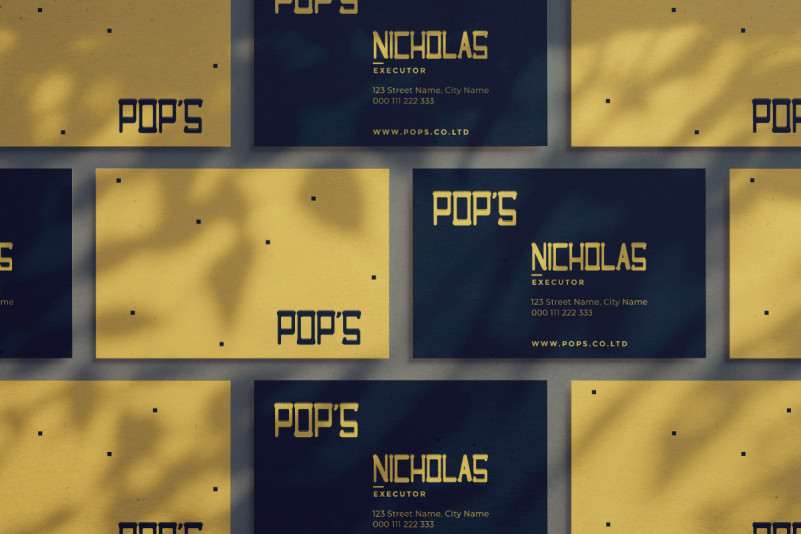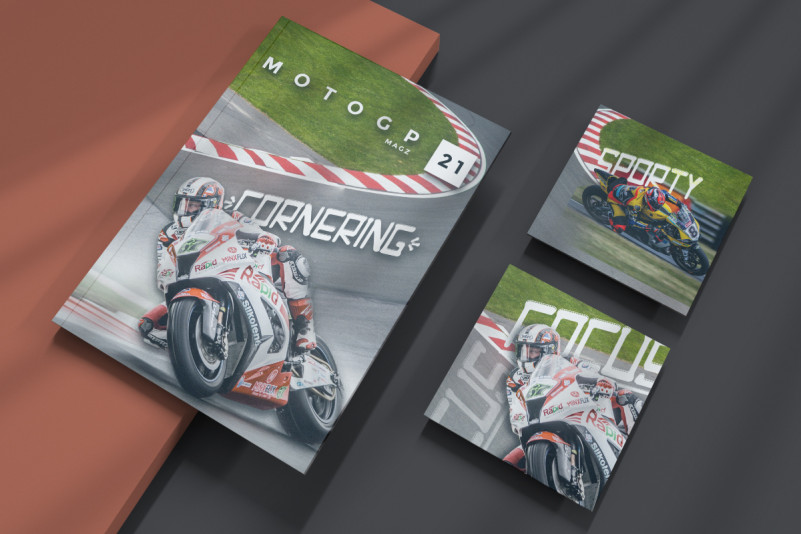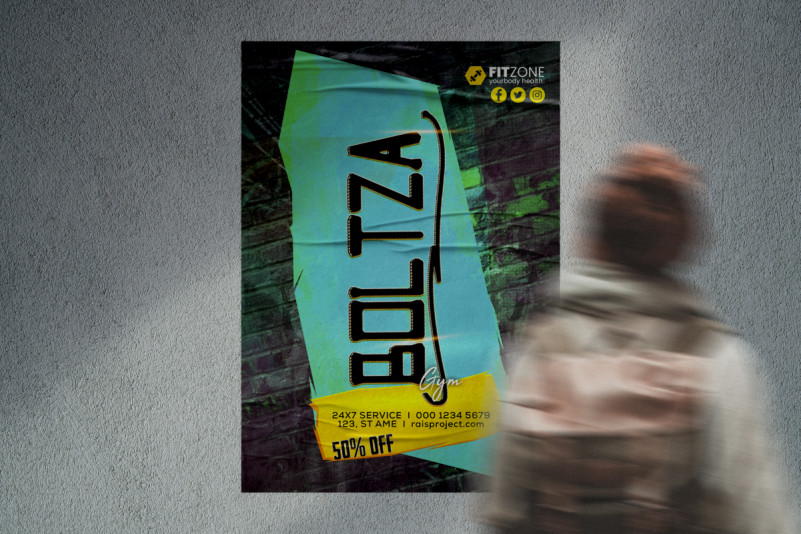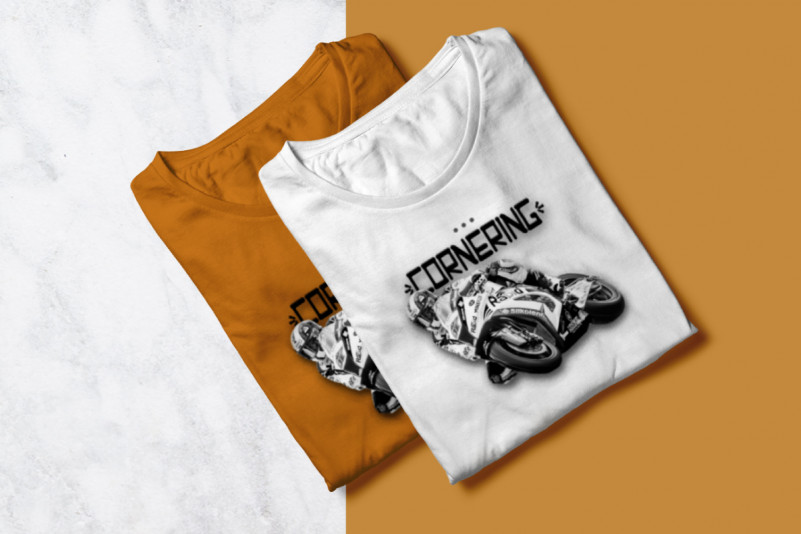
Cornering Font
Cornering Display Font
This font is consist of two different option styles : Regular and Italic . The font has firm, modern, masculine and exclusive characters. It was handcrafted for any your special projects including : headlines, promotion, events, branding, advertising, magazine, signage, invitation, stationery, social media posts, label, or and any projects that need unique strong style. The industries for this font is Racing, Automotive, Tournament, Sports, Technology, Game, Magazine, Music, boxing etc.